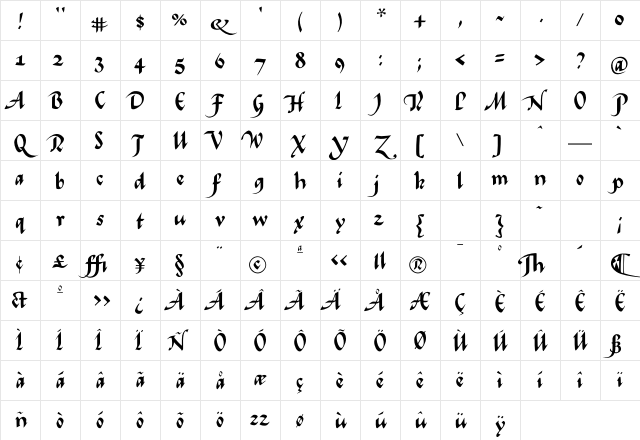
FlourishBold Regular
Design Context for FlourishBold
FlourishBold is a composed and adaptable typeface that performs quietly and consistently across a wide range of design contexts. Its bold stroke weight gives it real presence on the page.